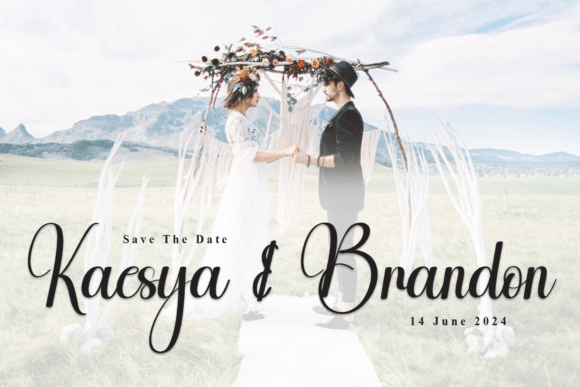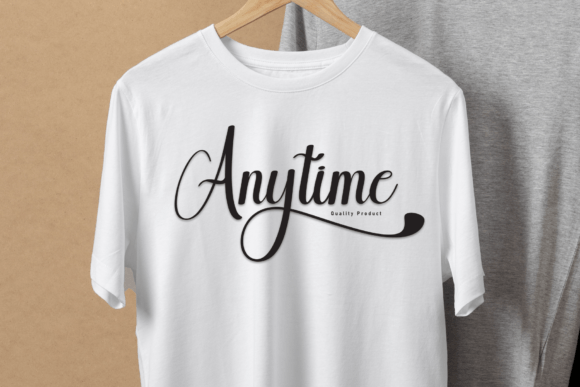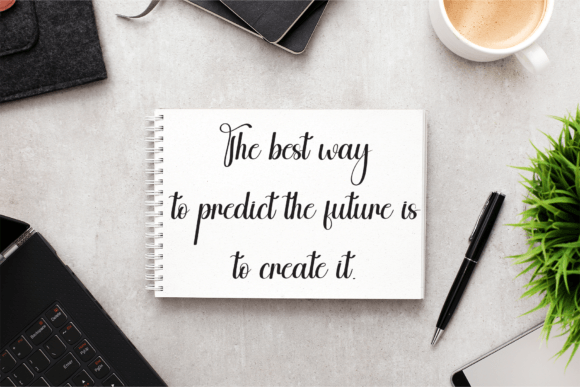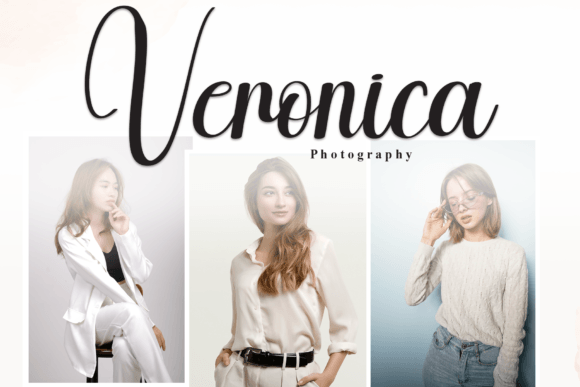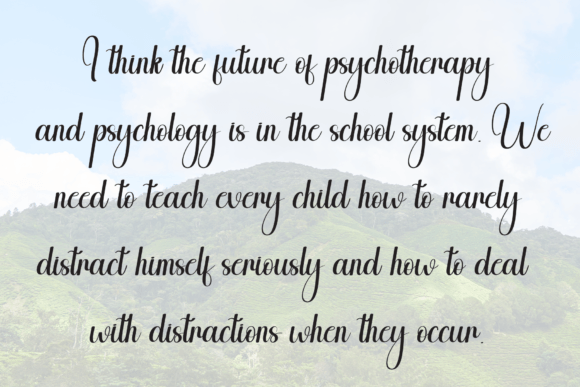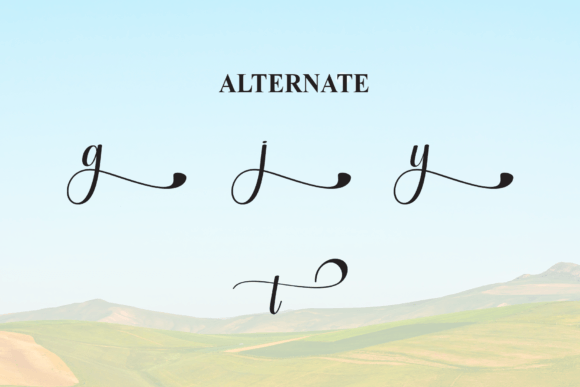
Have you ever stared at a blank canvas, trying to come up with the perfect idea to express your creativity? I’m sure you have, and it’s moments like those when the right font can make all the difference. That’s where the Brightland Font comes in – a sweet and friendly handwritten font that’s sure to bring a smile to anyone’s face.
This adorable font is perfect for writing wedding invitations, cards, or any other design that needs a fun touch. Whether you’re a seasoned designer or just starting out, Brightland Font is an invaluable addition to your toolkit. Its playful charm can instantly elevate your designs and give them a unique personality that’s hard to resist.
Brightland Font Key Features
- Size: The font family includes 6 weights, ranging from Thin (100) to Bold (700), providing versatility for various design applications.
- Unique Characteristics: The font features a unique blend of modern and traditional elements, with distinctive letterforms and a sophisticated aesthetic.
- Language Support: Brightland Font supports a wide range of languages, including Latin, Cyrillic, and Greek scripts, making it a versatile choice for global design projects.
- Kerning and Ligatures: The font includes advanced kerning and ligature features, ensuring smooth text rendering and a professional appearance in various font combinations.
Brightland Font Review
Overall, I’d say that Brightland Font is a decent addition to any design project, but it’s not a game-changer. Let’s dive into what works well and what doesn’t.
- Unique aesthetic: Brightland Font has a distinctive look that can add a touch of sophistication to modern designs.
- Legibility: The font is well-designed for body text and is easy to read, even at smaller sizes.
- Flexibility: Brightland Font comes in a range of weights, making it suitable for various design applications.
- Lack of expressiveness: While the font is elegant, it can feel a bit sterile in certain contexts.
- Not ideal for headlines: The font’s subtlety can make it difficult to use effectively for attention-grabbing headlines.
- May not stand out in a crowded market: With so many other beautiful fonts available, Brightland Font may get lost in the shuffle.
Overall, I’d recommend Brightland Font for projects where a clean, modern look is desired, but it may not be the best choice for more experimental or attention-grabbing designs.
Getting the Most Out of Brightland Font
Here are some tips for getting the most out of Brightland Font:
– Use it for headings and titles to add a touch of elegance.
– Pair it with other fonts to create a unique and interesting design.
– Experiment with different font sizes and styles to add visual interest.
Brightland Font is commonly used for:
– Branding and logo design.
– Wedding invitations and stationery.
– Luxury product packaging and design.
– High-end marketing materials.
Alternatives to Brightland Font for Designers
Lato is a modern sans-serif font designed for digital use. It is suitable for body text and headings, making it a versatile choice for designers. Lato is often used in digital products, such as websites and mobile applications, due to its clean and legible design.
Comparison to Brightland Font: Lato is more modern and minimalist, whereas Brightland Font has a more elegant and sophisticated feel. Lato is also more suitable for digital use, while Brightland Font is more versatile for print and digital use.
2. Merriweather Font
Merrweather is a classic serif font designed for body text and long-form content. It is suitable for print materials, such as books and magazines, due to its traditional and elegant design.
Q: Is the Brightland Font optimized for digital use?
Yes, the Brightland Font is carefully crafted for optimal performance in digital environments. It includes features such as hinting and kerning to ensure clear and crisp rendering at various font sizes and resolutions.